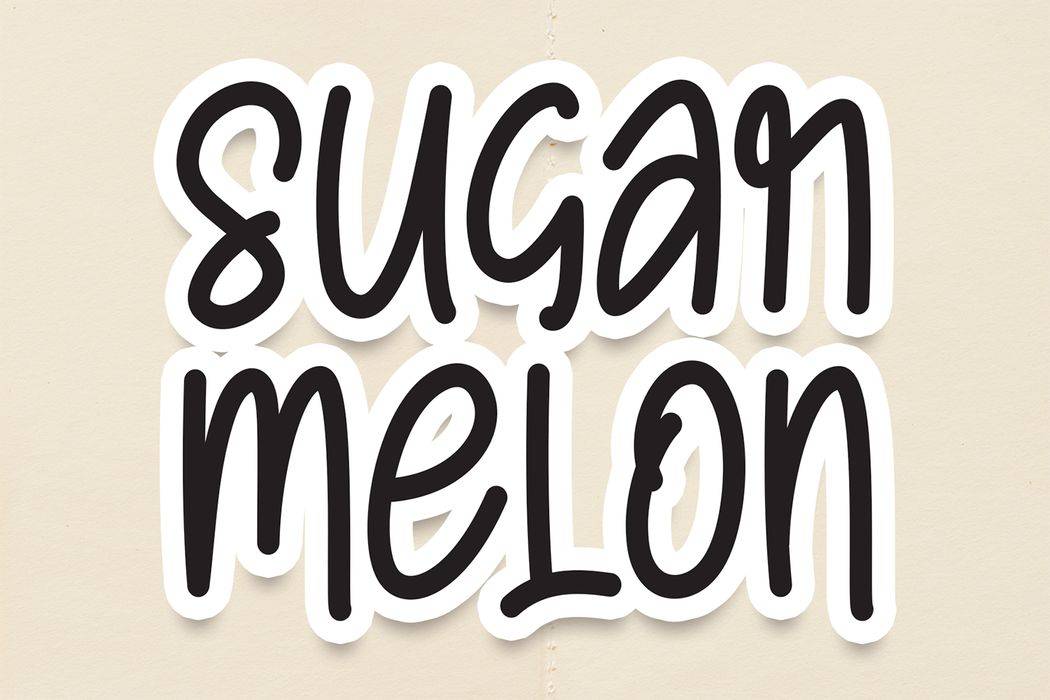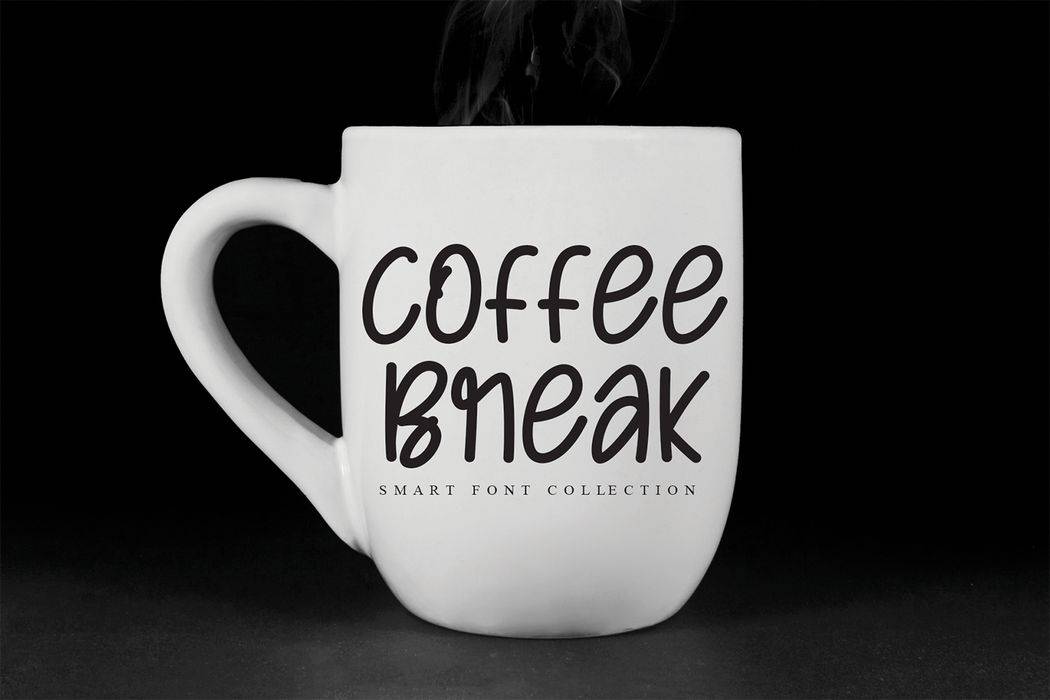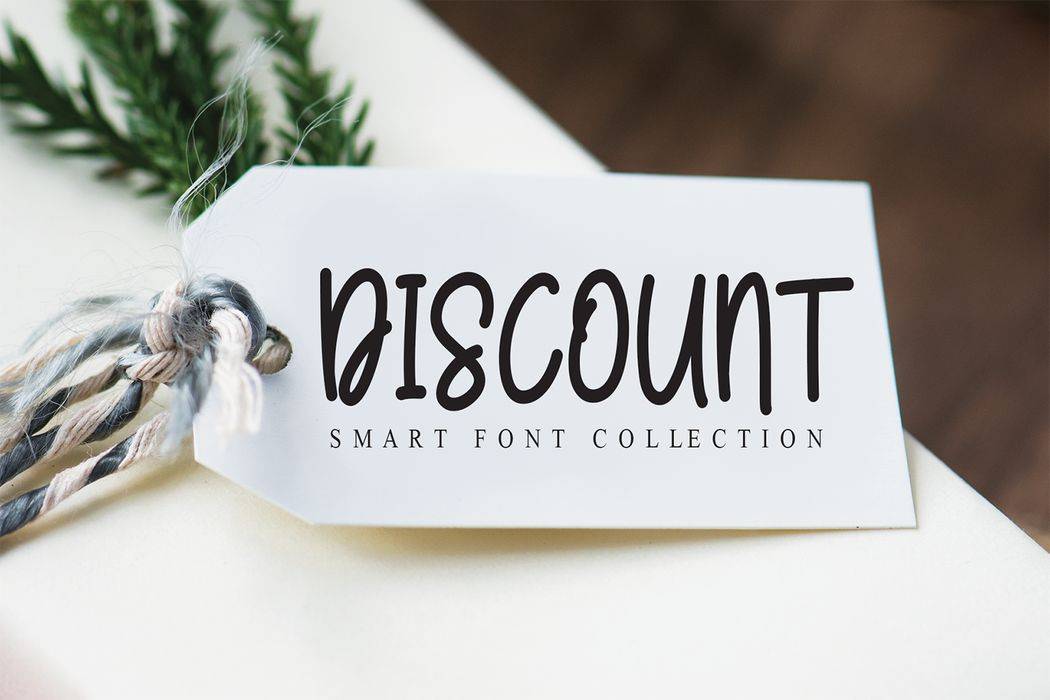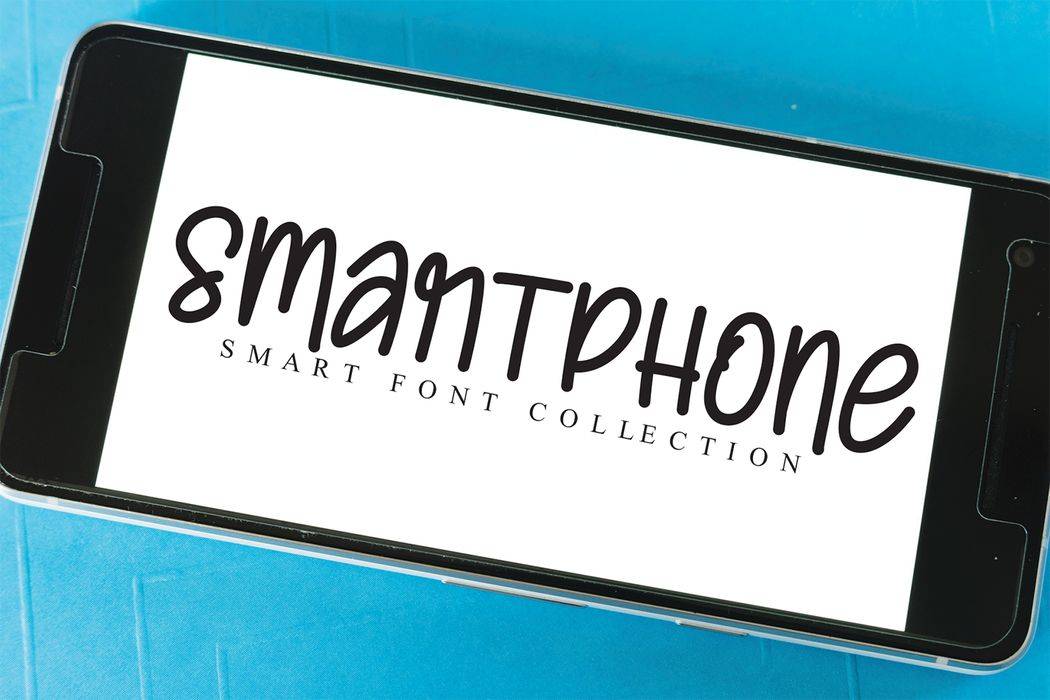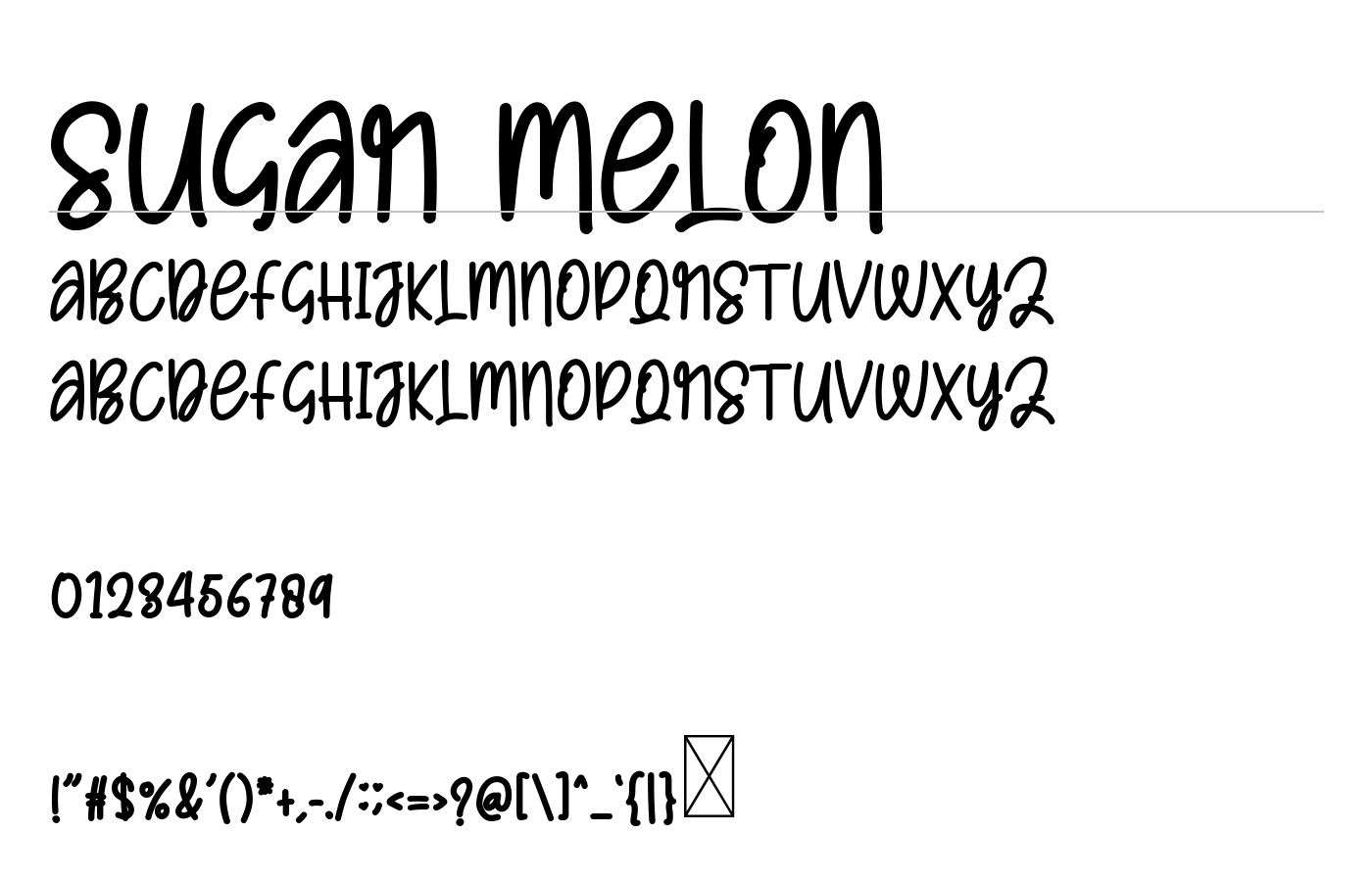
Sugar Melon is a playful and casual handwritten font with a lively, friendly character. Its rounded, slightly irregular letterforms and moderate x-height create an approachable and informal feel, making it perfect for creative, youthful designs such as logos, invitations, and social media graphics. The font’s clear readability combined with its whimsical style also suits fun headlines or branding that aims to convey warmth and personality.
Sugar Melon Font
About Sugar Melon Font